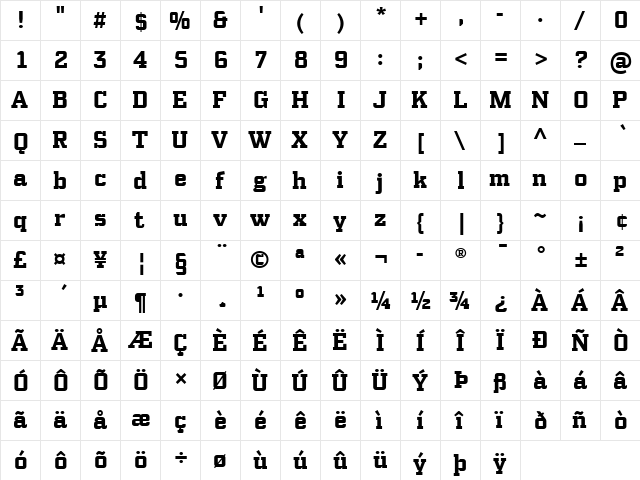
PF Synch Pro Bold
Bold · Parachute蠗orldwide Panos Vassiliou ·
DesignerPanos Vassiliou
Design Context for PF Synch Pro Typeface
PF Synch Pro offers clean, dependable letterforms without strong stylistic allegiance, making it a practical choice for designers who need flexibility. The heavy weight commands attention and anchors typographic hierarchies.